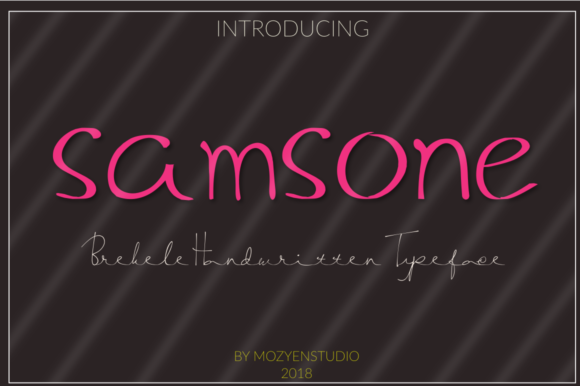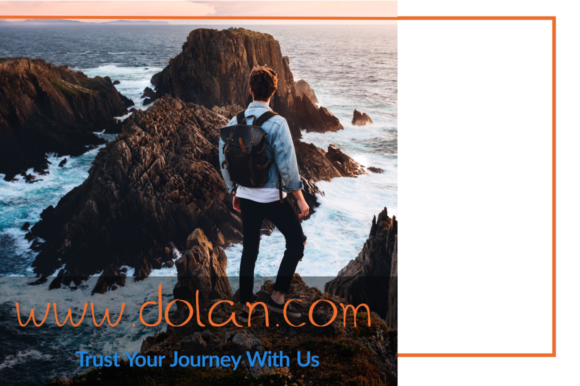
Brekele Font
About Brekele Font
The Brekele, characterized as a natural handwritten font, presents itself as a noteworthy typeface with clear letters and exceptional readability. This font is crafted to seamlessly blend clarity with a distinct touch, contributing a unique and authentic feel to your designs.
One of the standout features of The Brekele is its clear and legible letters. The careful design ensures that each character is easily discernible, promoting readability across various applications. This emphasis on clarity makes The Brekele suitable for a wide range of design projects, from headlines and titles to body text, where effective communication is paramount.
The unique touch that The Brekele brings to designs stems from its handwritten aesthetic. The natural strokes and organic feel of the font add a layer of authenticity, making it more than just a set of letters but a design element that imparts a personal and genuine touch to your creative projects.
The versatility of The Brekele becomes evident as it seamlessly integrates into diverse design contexts. Whether employed in branding, marketing materials, digital or print media, the font’s unique combination of readability and a natural handwritten style allows it to make a memorable impact.
In essence, The Brekele stands as a testament to the synergy between clarity and uniqueness. It is not merely a font but a design asset that brings a natural, handwritten charm to your work. Its clear letters ensure effective communication, while its unique touch elevates your designs, creating a visual language that is both authentic and distinctive.